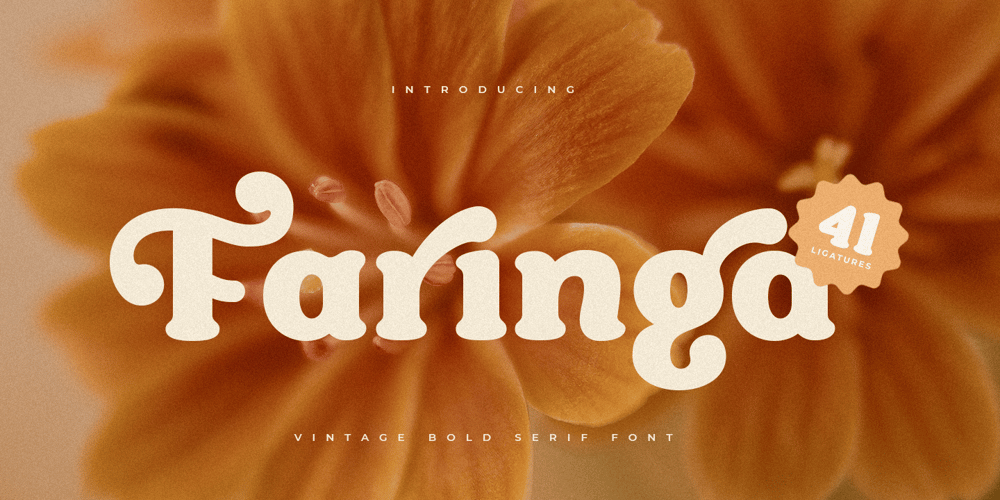
Faringa Font Family was designed by Zamroni Hamzah and published by Sensatype Studio. Faringa contains 2 styles and family package options. Faringa is a New Bold Vintage Font with Retro style inside.An extraordinary style with vintage and retro in serif font, to make your design more standout. As our focus that analyze any typeface that helps to leverage any logo design to look more modern and unique. We prepared this font with any vintage characters to help you create creative style.Faringa Bold Retro Vintage Font ready with: Better style of characters with creative style Preview as a inspirations that you can do with Faringa font All Uppercase characters Wish you enjoy our font. ๐